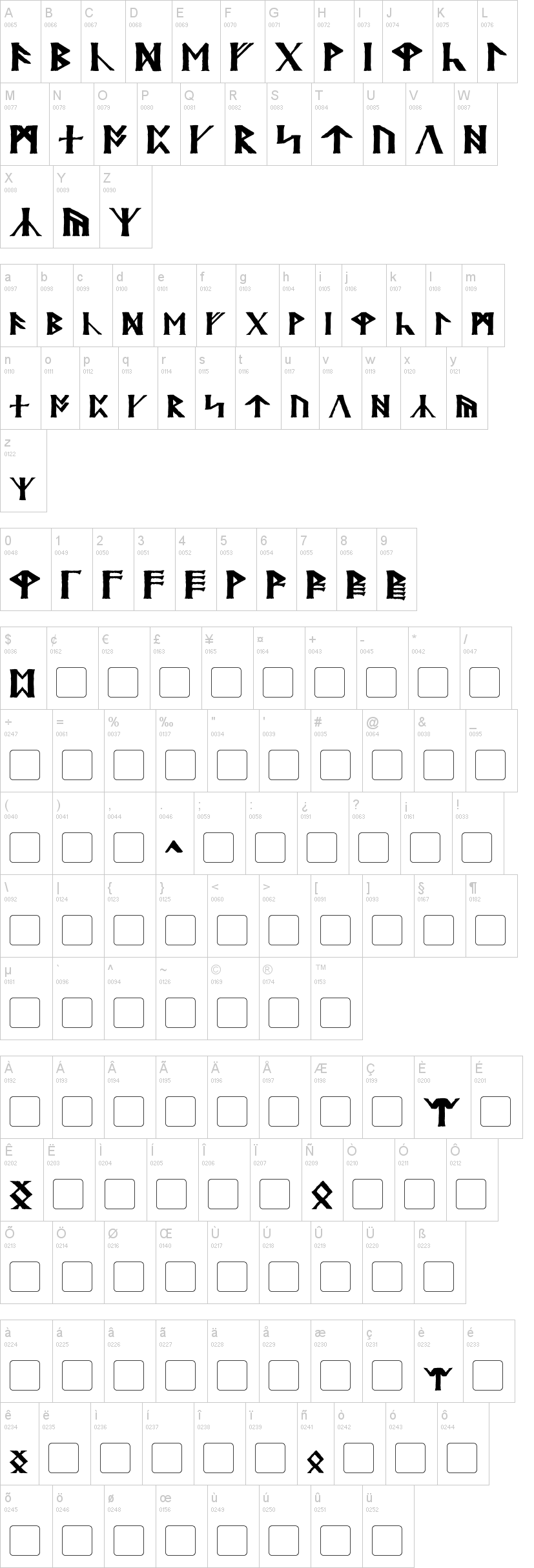
Britannian Italic.otfBritannian Bold.otfBritannian Bold Italic.otfNote of the authorBritannian is an Northern-Runic styled face based on the ancient runic language provided by the legendary Origin Systems Ultima games. Includes canon character, and adopted fandom numerals. Includes regular, bold, italic, and bold-italic weights.